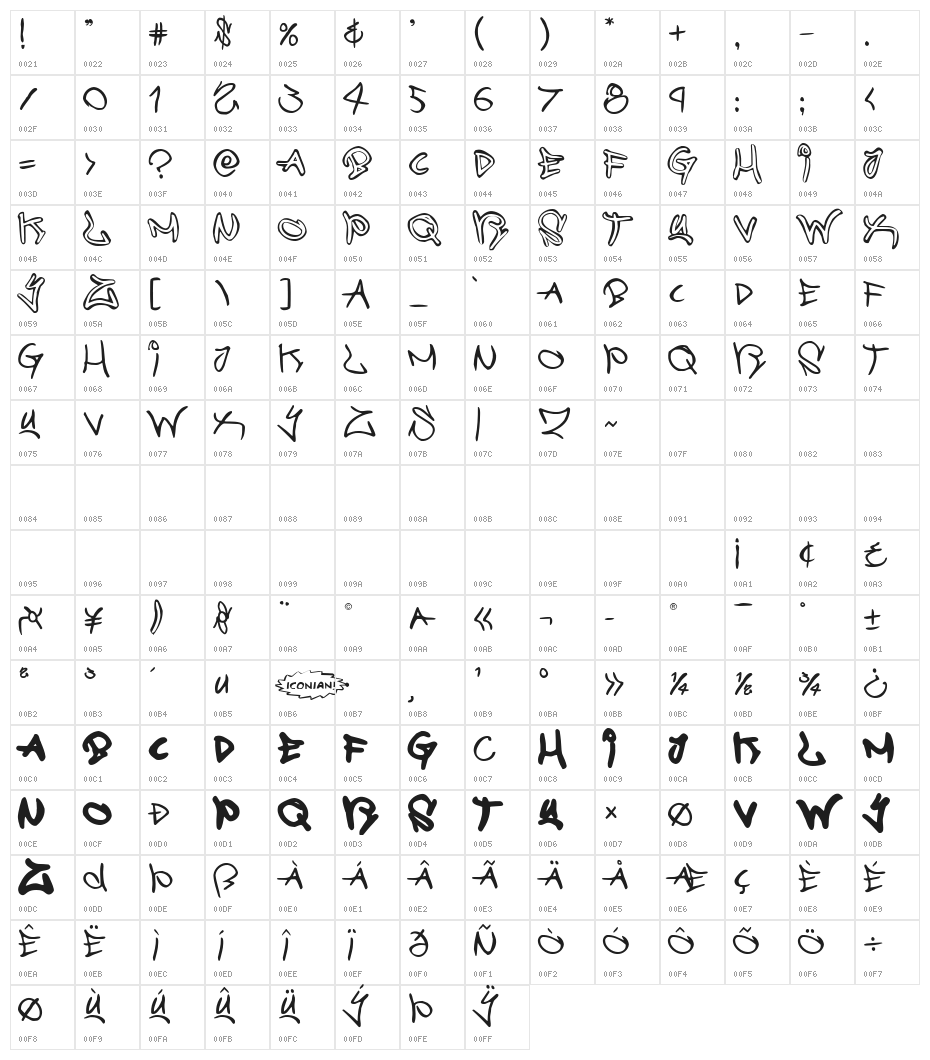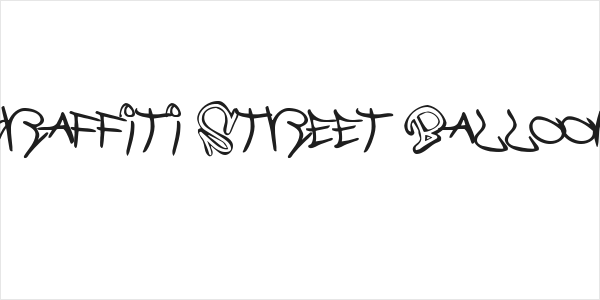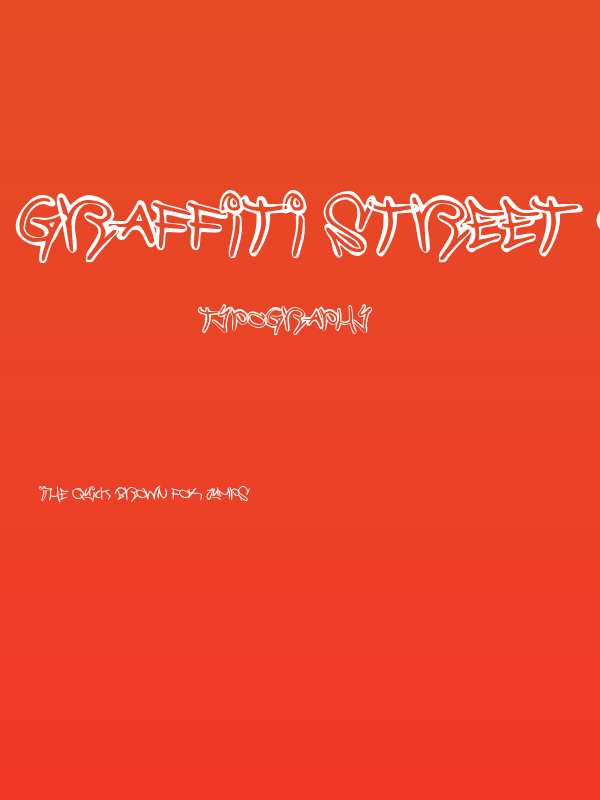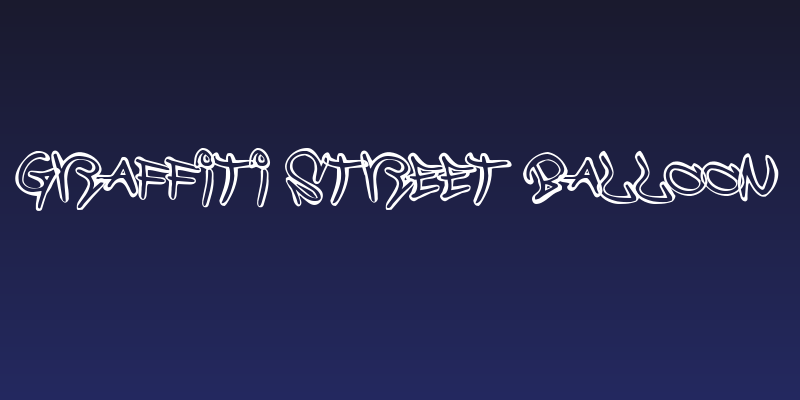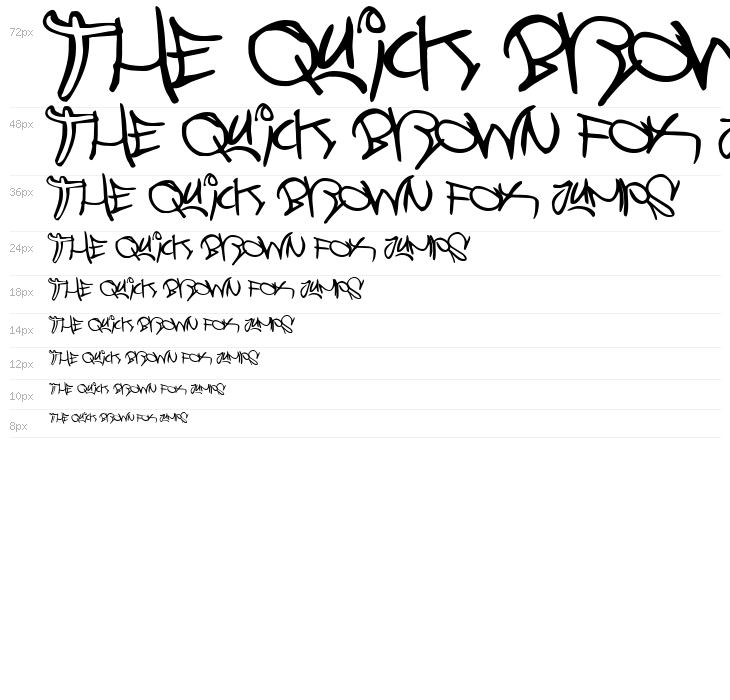
Graffiti Street Balloon Font
Graffiti Street Balloon Description
This font embodies a bold, urban graffiti style with a playful and energetic vibe. The characters are designed with a balloon-like appearance, featuring thick, rounded strokes that give them a three-dimensional effect. The uppercase and lowercase letters maintain a consistent flow, with exaggerated curves and loops that add to the dynamic feel. The numbers and special characters follow the same aesthetic, ensuring a cohesive look across all elements. The font's unique style makes it stand out, capturing the essence of street art with a modern twist.
| Overall Style | Modern, Urban, Playful |
| Use Case | Logos, Posters, Event Flyers |
| Proposed Projects | Ideal for street art projects, urban-themed designs, posters, and event flyers. |